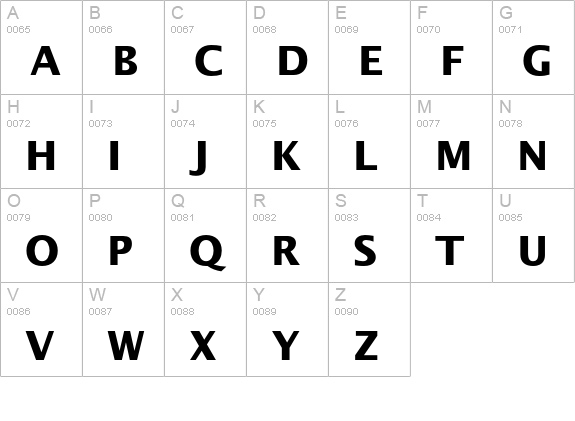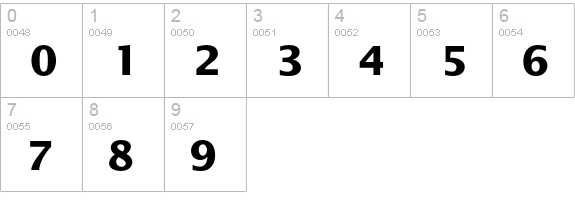
Lucida Sans Bold is a strong, high-contrast variant in the Lucida typeface family \xE2\x80\x94 well suited to headlines, attention-grabbing titles, and strong calls-to-action.
Lucida Sans Bold is a striking and modern font that exudes confidence and clarity. Its bold weight commands attention while maintaining a clean and legible appearance. The thick, robust strokes make a strong statement, perfect for headlines, titles, and other prominent text. Lucida Sans Bold is a versatile typeface that can be used across a variety of design projects, from branding to web design. What's even better is that Lucida Sans Bold is available for free download at FontsMarket.com. This means you can easily access this professional and impactful font without any cost, making it a valuable addition to your font library. Don't miss out on the opportunity to enhance your designs with the bold and expressive qualities of Lucida Sans Bold. Download it today and elevate your projects to the next level.